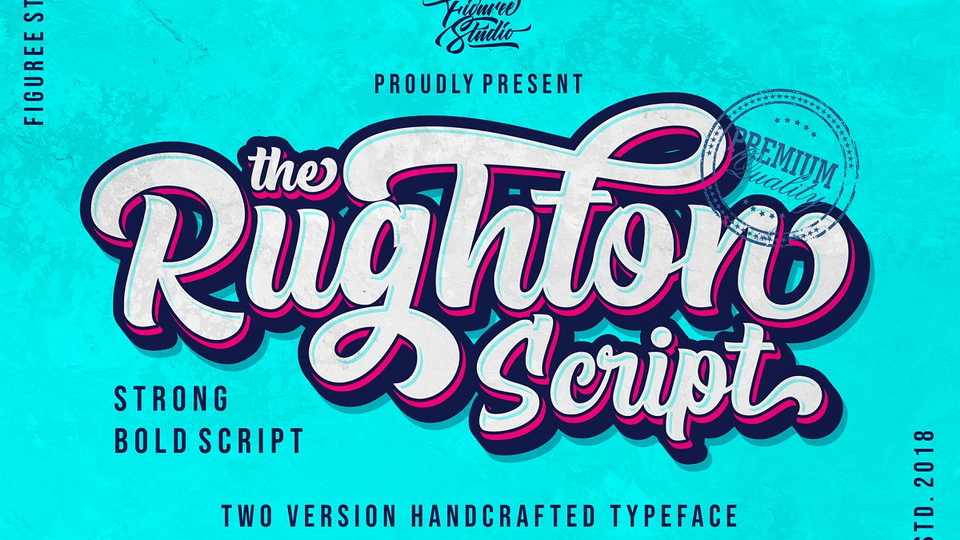
Download The Rughton Script, a strong bold hand lettered font that comes from hand scratches to get natural writing. The Rughton Script is very suitable for use in various media, packaging, logos, labels, posters, shirt designs, and many other media, especially with retro or vintage look.
Designer: Figuree Studio